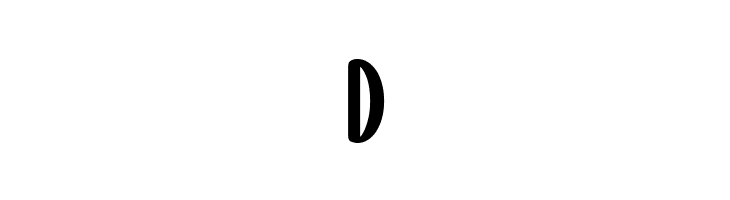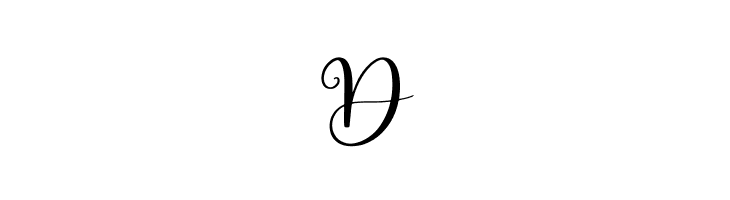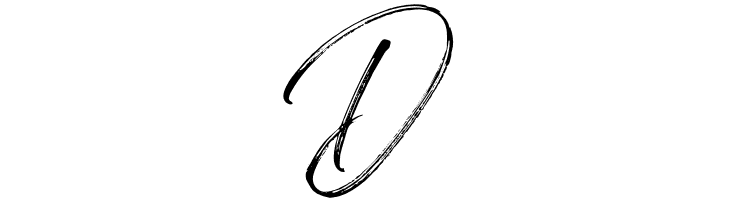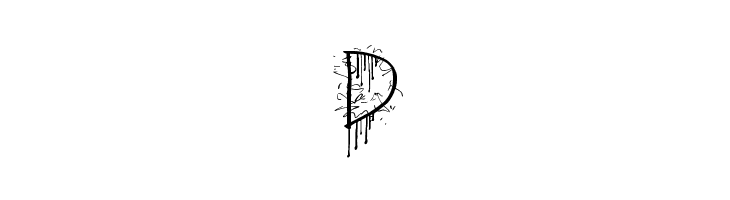
A tall, narrow font with high contrast and angular serifs, perfect for dramatic designs.
A playful, decorative font with striped, rounded characters.
A playful, striped italic font with a dynamic and friendly style.
A playful, bold font with rounded, thick strokes and a whimsical style.
A dynamic, italicized font with a playful yet sophisticated style.
A playful, hand-drawn font with bold outlines and quirky character designs.
A playful, hand-drawn font with a 3D sketch effect.
A bold, geometric sans-serif font with a modern and impactful style.
A bold, geometric font with a modern, structured design.
A bold, brush-style font with dynamic, rebellious strokes.
A lively handwritten font with fluid, connected strokes and a playful aesthetic.
A bold, dynamic font with playful, energetic characters.
A bold, mosaic-patterned font with a geometric and decorative style.
A geometric, angular font with a futuristic and bold style.
A playful, modern font with rounded, slightly condensed characters and unique curves.
A tall, narrow, and modern font with clean lines and a uniform stroke width.
An elegant and flowing script font with graceful curves.
A playful, bold font with irregular, lively strokes.
A bold, retro font with rounded, bubbly letterforms and high contrast strokes.
A bold, tall font with consistent stroke width and a modern, commanding presence.
Hand-drawn, grunge-style social media icon set with sketchy circular backgrounds.
A bold, angular font with a futuristic and aggressive style.
A bold, angular, and tech-inspired font with a modern slant.
A bold, angular font with a futuristic and dynamic design.
A playful handwritten font with fluid, elegant letterforms.
A bold serif font with strong strokes and classic serifs.
A classic serif font with medium weight and elegant serifs.
A classic serif font with a modern touch, offering elegance and versatility.
A bold, angular font with sharp, thorn-like edges for a fierce look.
A playful, handwritten font with fluid, cursive strokes and a modern aesthetic.